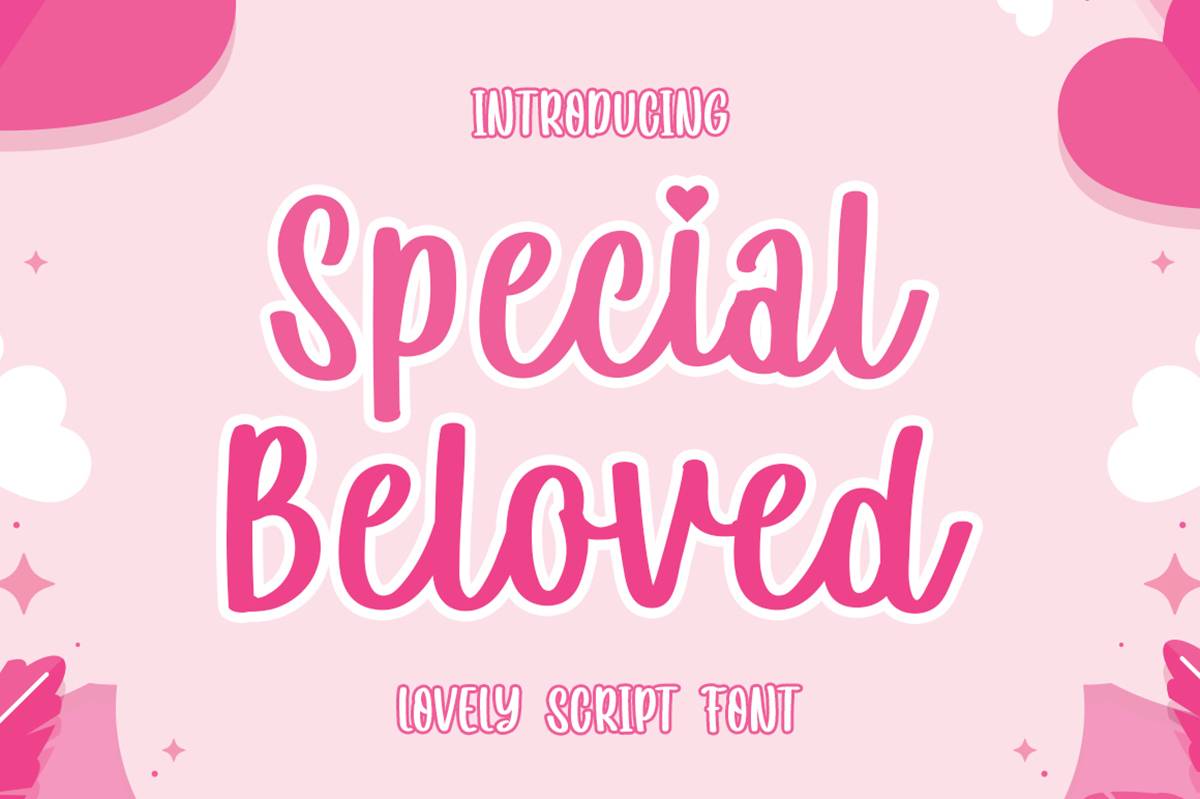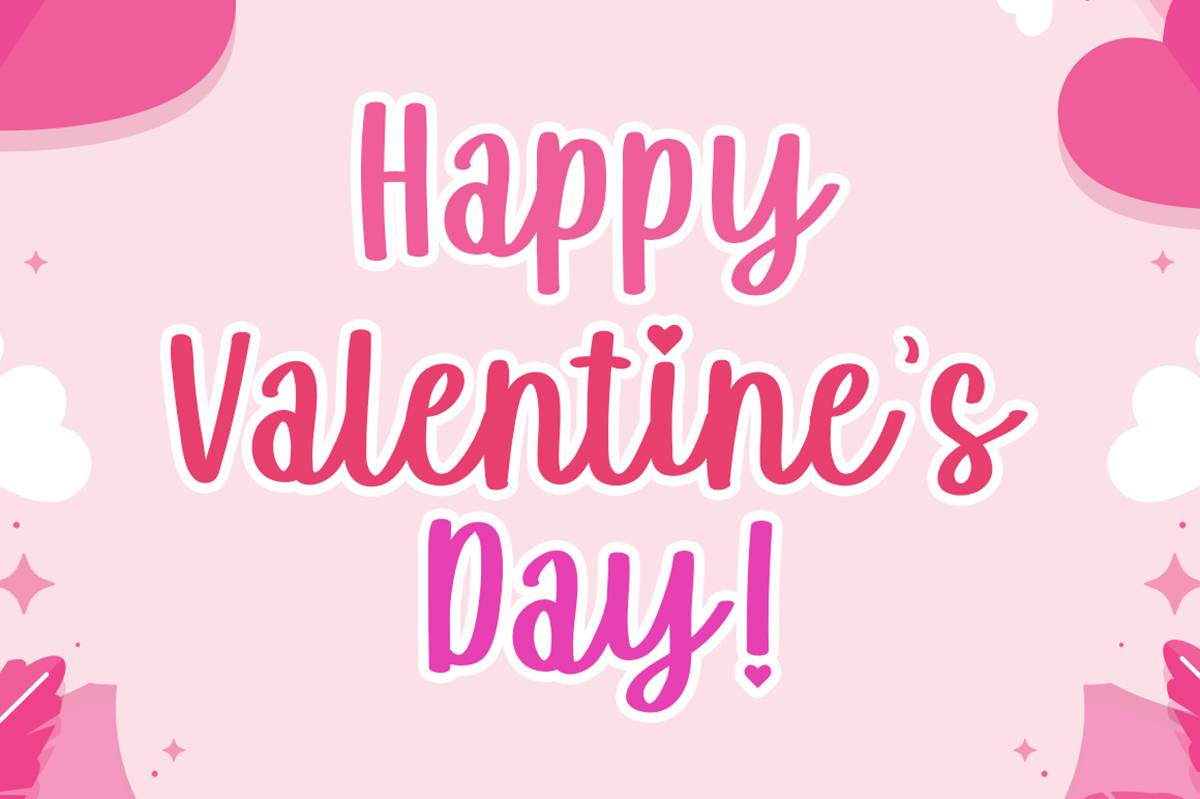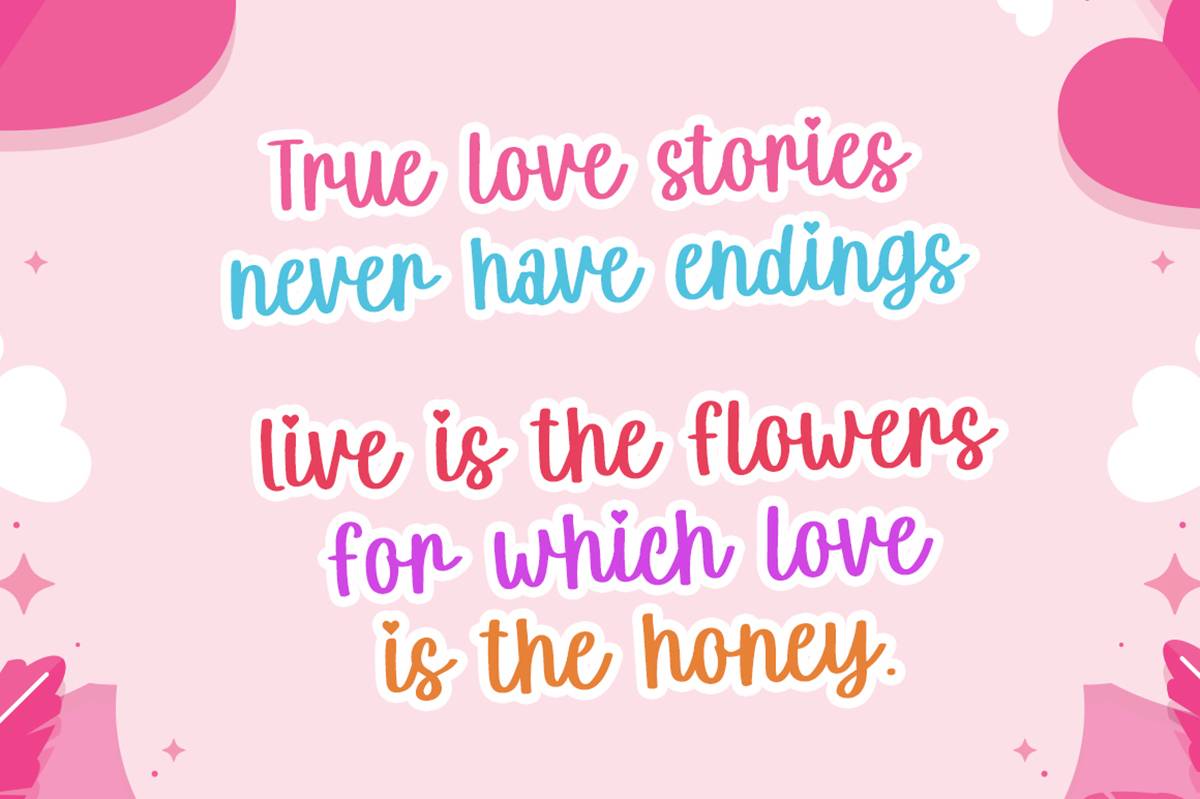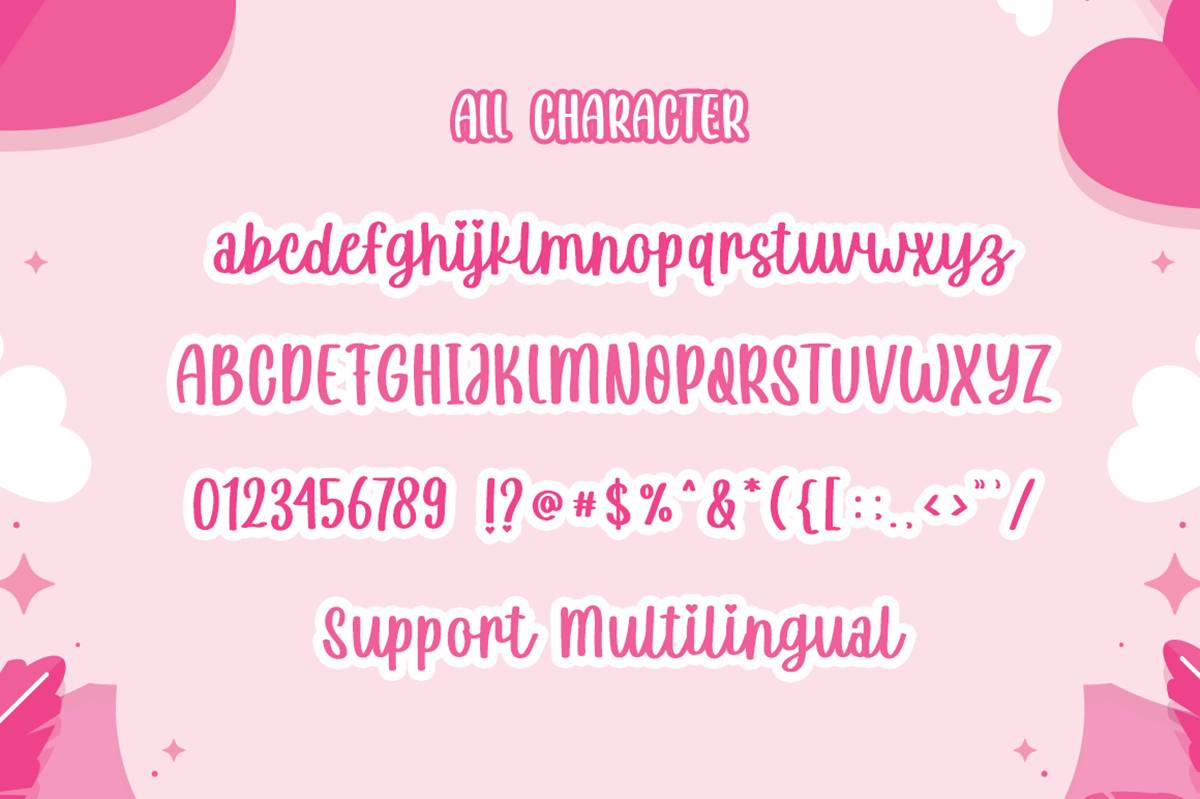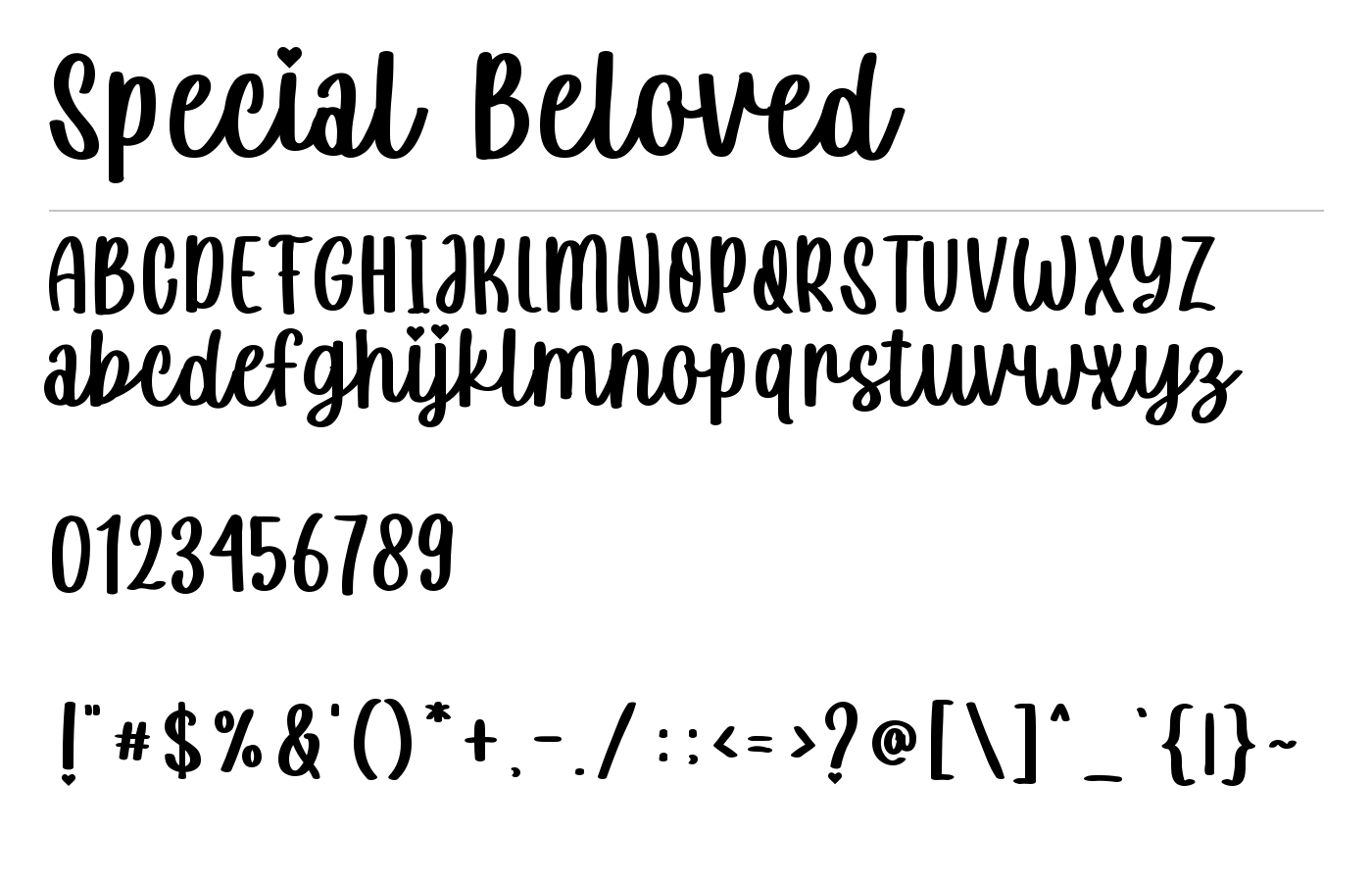
Special Beloved is a playful and charming script font with a lively, hand-drawn feel. Its medium weight and slightly condensed form, combined with unique heart-shaped details on some characters, give it a friendly and inviting personality, making it ideal for creative projects, invitations, branding, and packaging where a warm, personal touch is desired.
Special Beloved Font